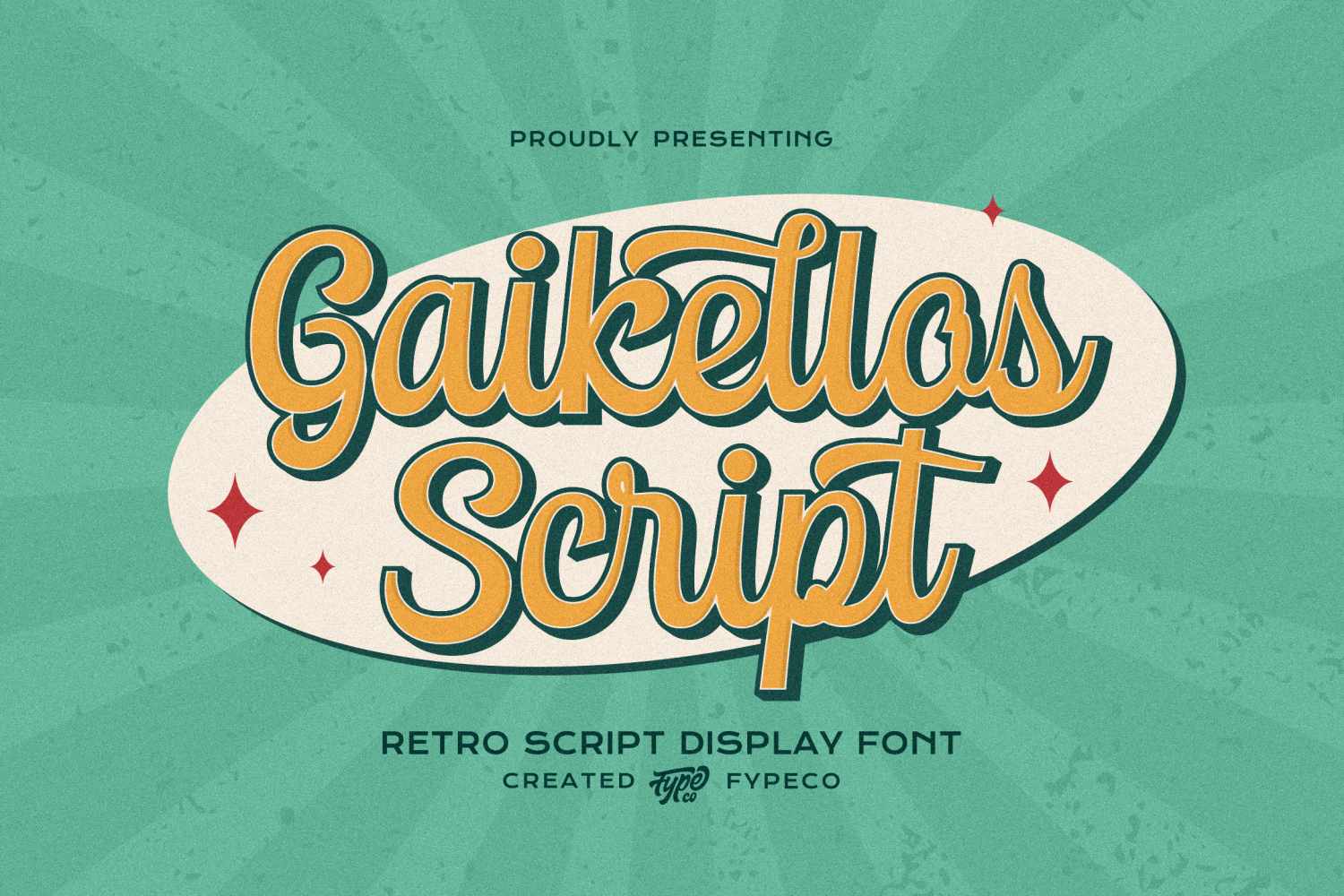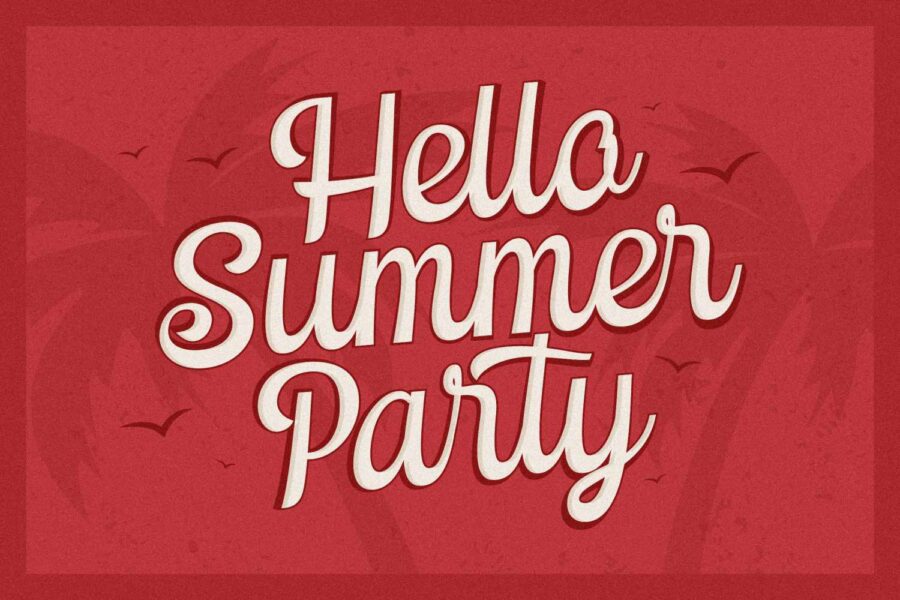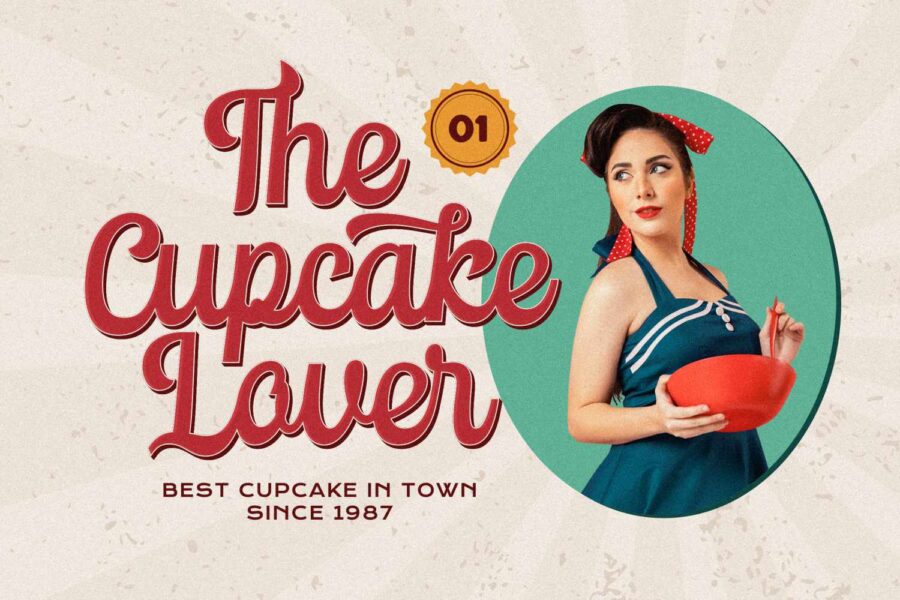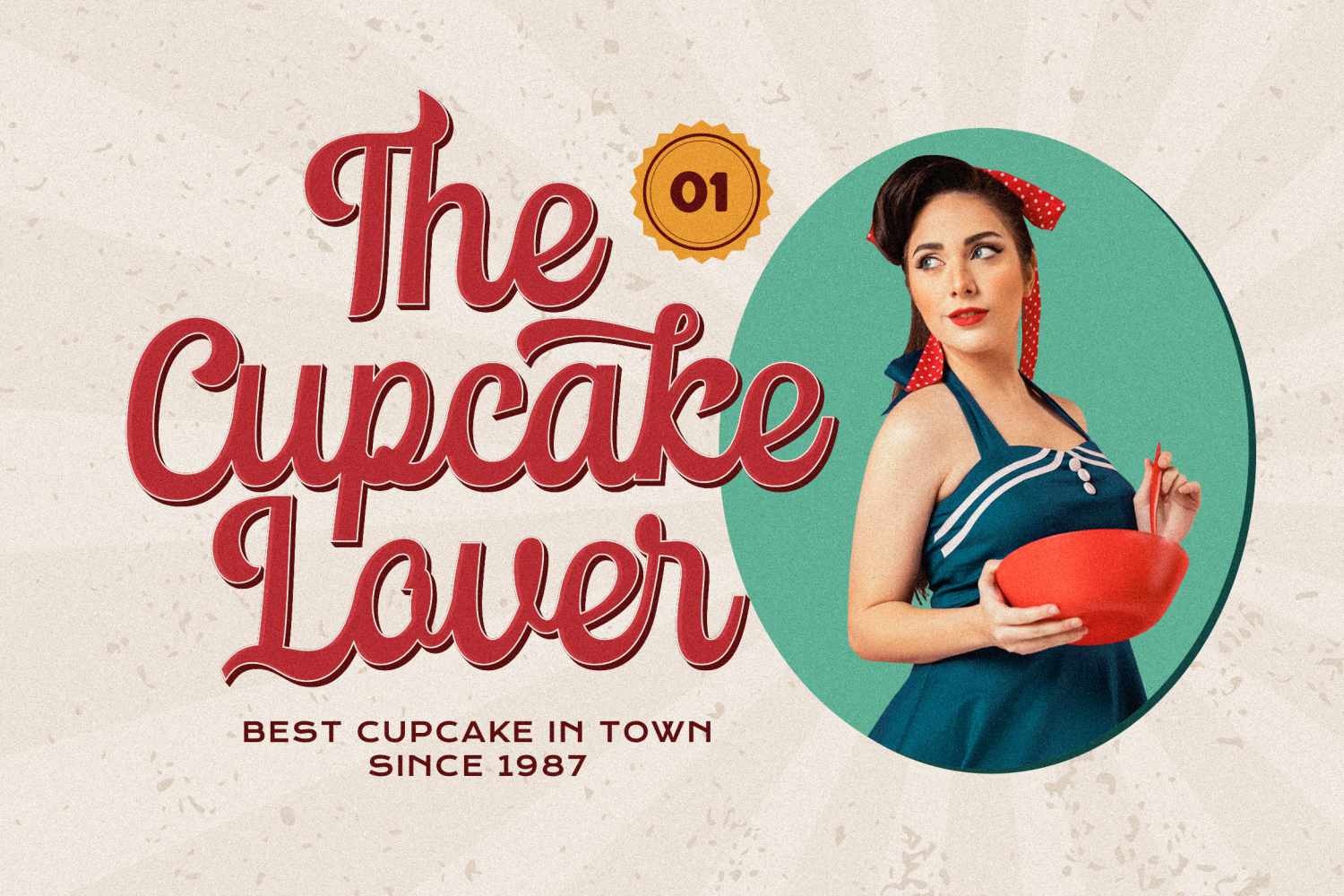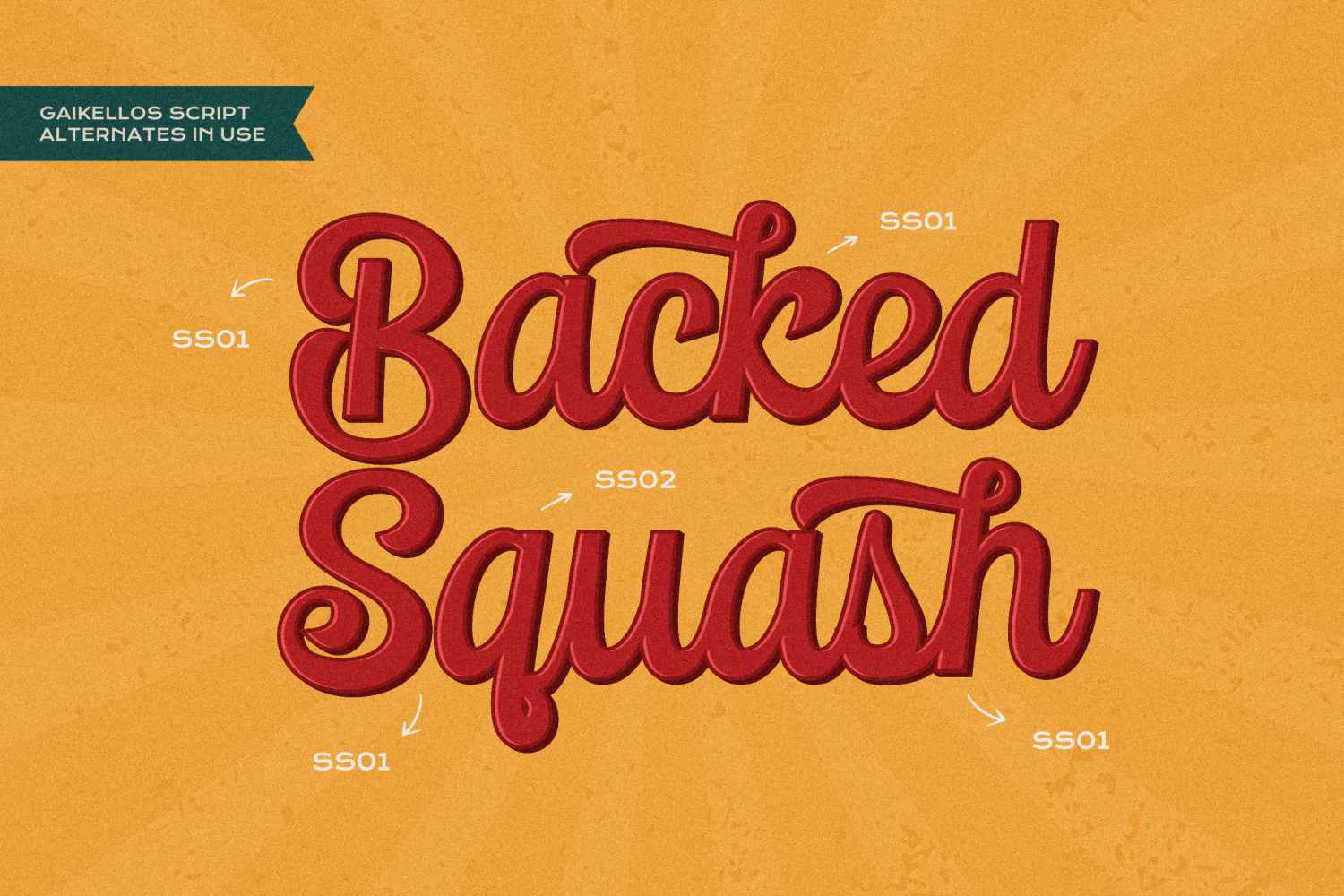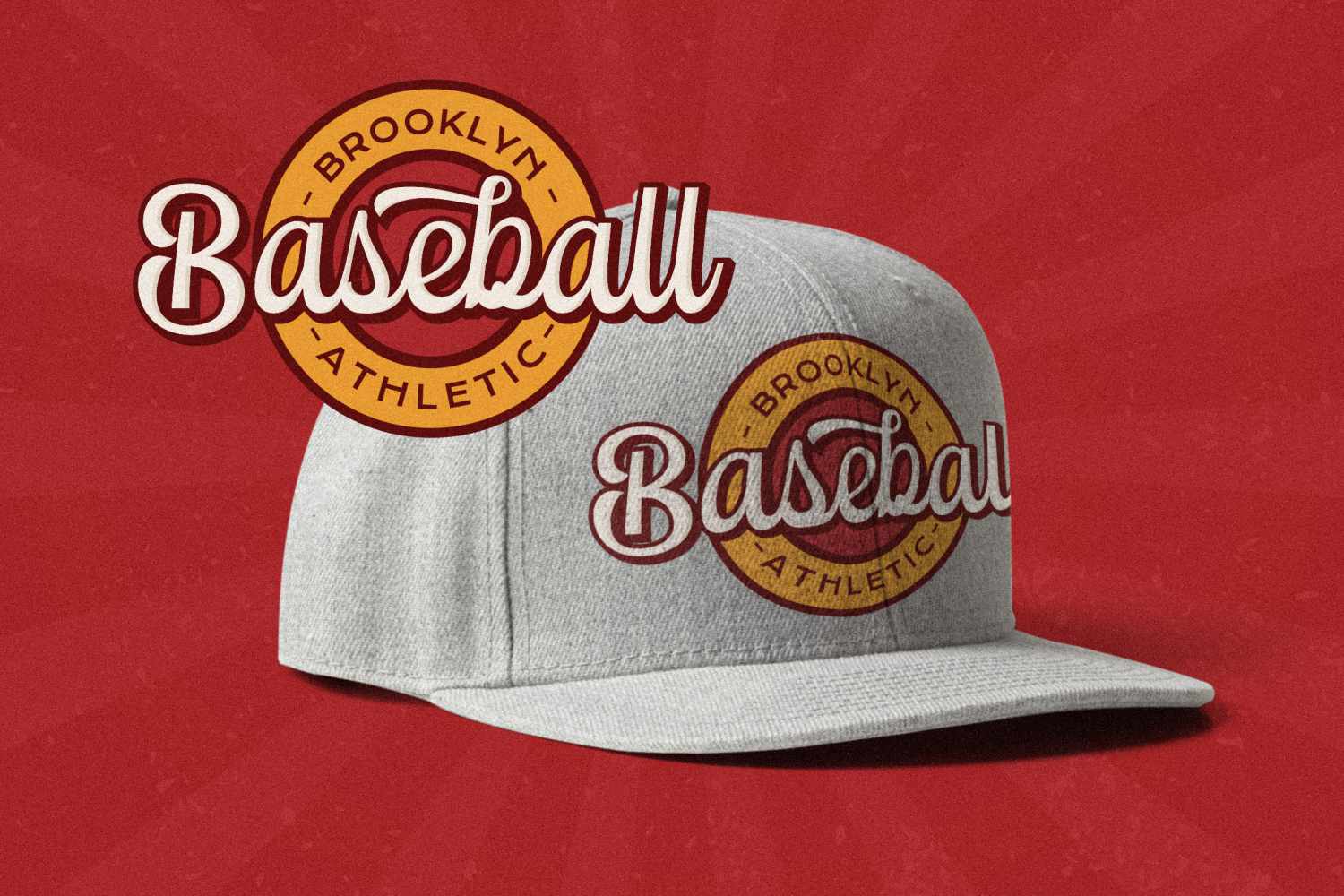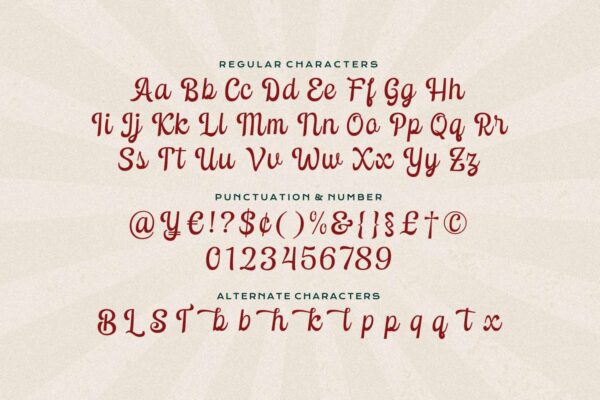
Gaikellos Script
Gaikellos Script is a retro-inspired script display font that brings back the charm of vintage lettering with a bold and playful twist. Its smooth curves, layered shadows, and expressive strokes make it perfect for designs that aim to capture a nostalgic yet energetic vibe. This font is highly versatile for retro posters, summer event headlines, food and beverage branding, and classic packaging designs, where a touch of personality and fun is needed.
With stylistic alternates and ligatures, Gaikellos Script allows designers to create dynamic and eye-catching typography. Its retro character blends perfectly for apparel graphics, logos, signage, and advertising campaigns that want to stand out with a unique vintage flair. Whether you’re aiming for a 70s-inspired look or a bold script headline, this font delivers creativity, authenticity, and style in every letter.